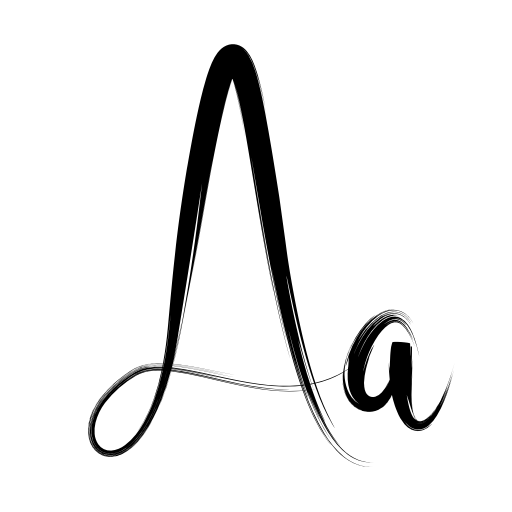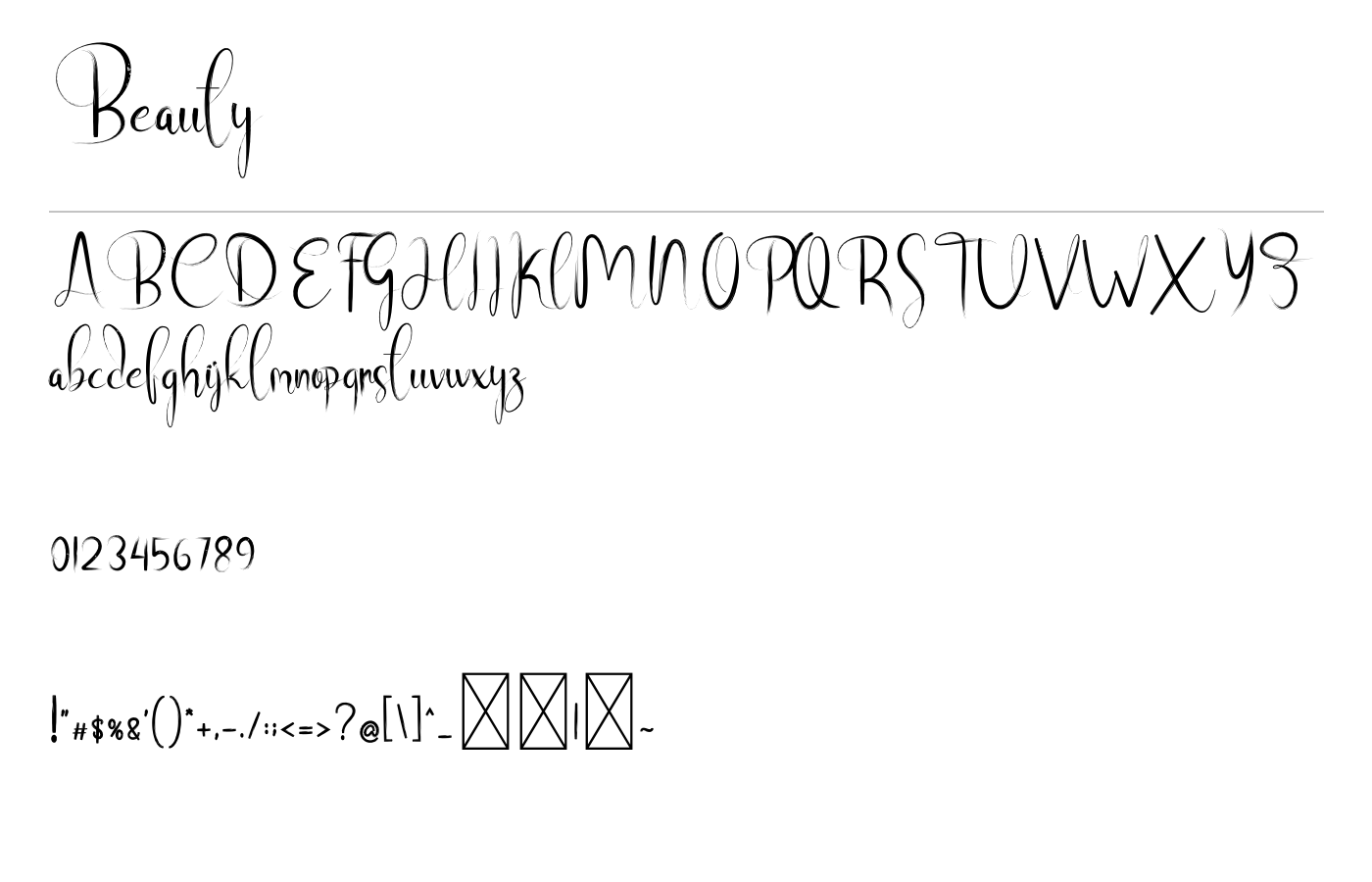
Beauty Font is a delicate and elegant script typeface characterized by its flowing, slender strokes and graceful letterforms, which mimic the fluidity of fine calligraphy. Its light weight and high contrast between thick and thin lines give it a sophisticated, airy feel, making it perfect for luxury branding, wedding invitations, and beauty-related designs where a refined and feminine touch is desired. This font shines best in headlines or logos where its artistic style can be fully appreciated without sacrificing legibility.
Beauty Font
About Beauty Font
| Font family | Beauty Font |
| Designer | fahmistudio99 |